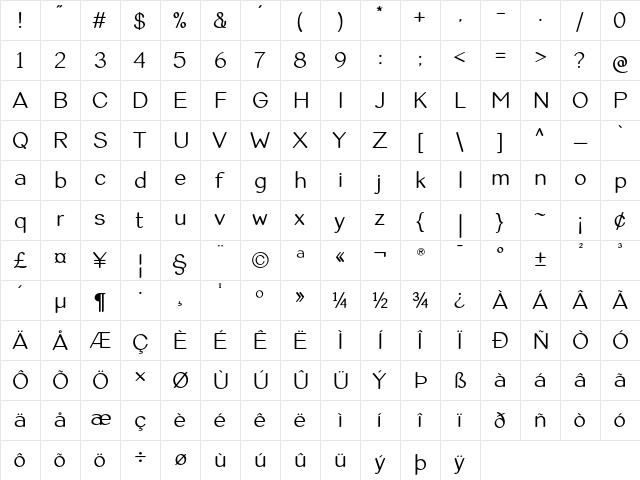
Violina Regular
| Foundry | Darwinoo |
| Designer | Darwinoo |
Design Context for Violina Typeface
Violina offers clean, dependable letterforms without strong stylistic allegiance, making it a practical choice for designers who need flexibility.